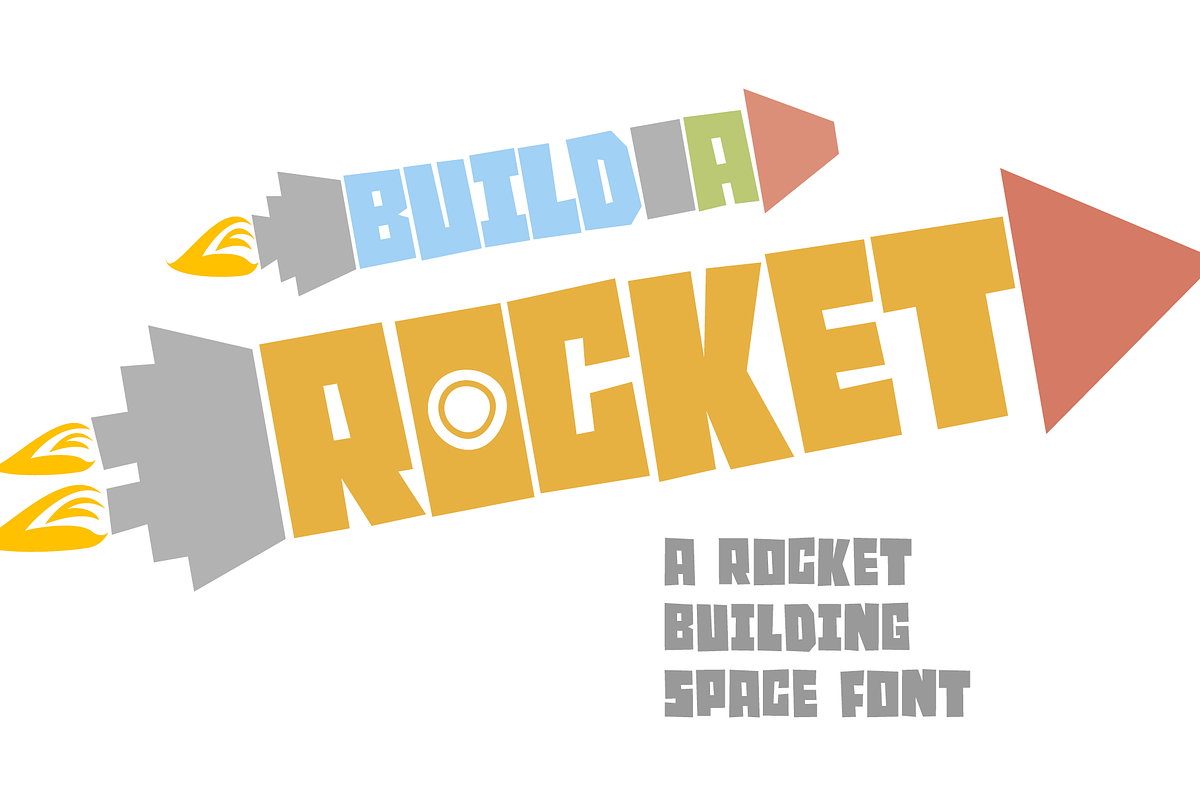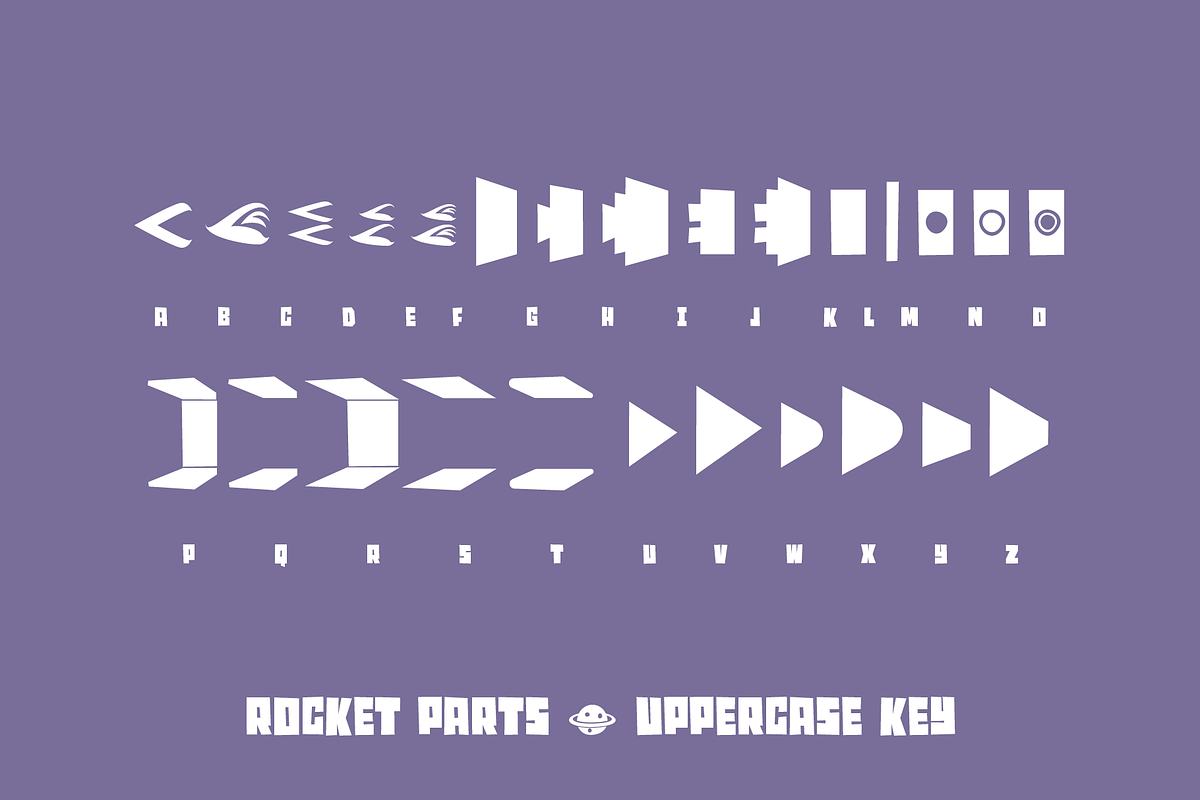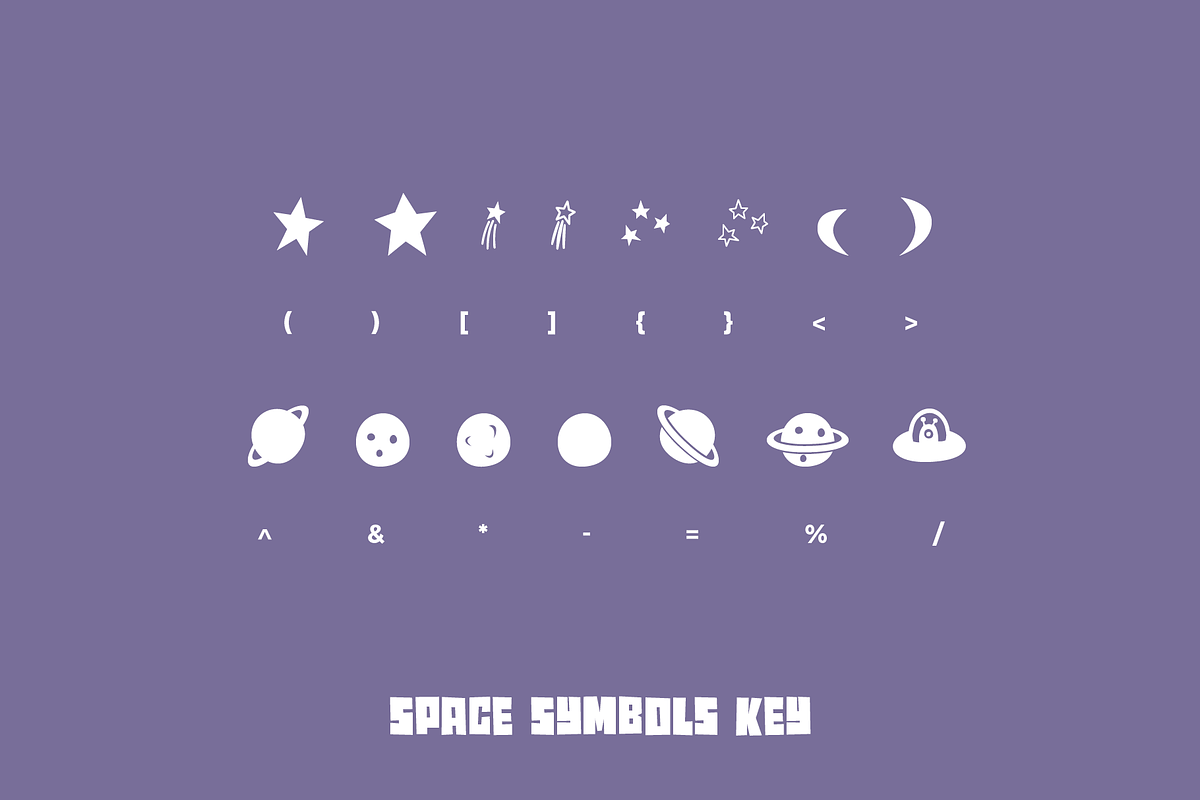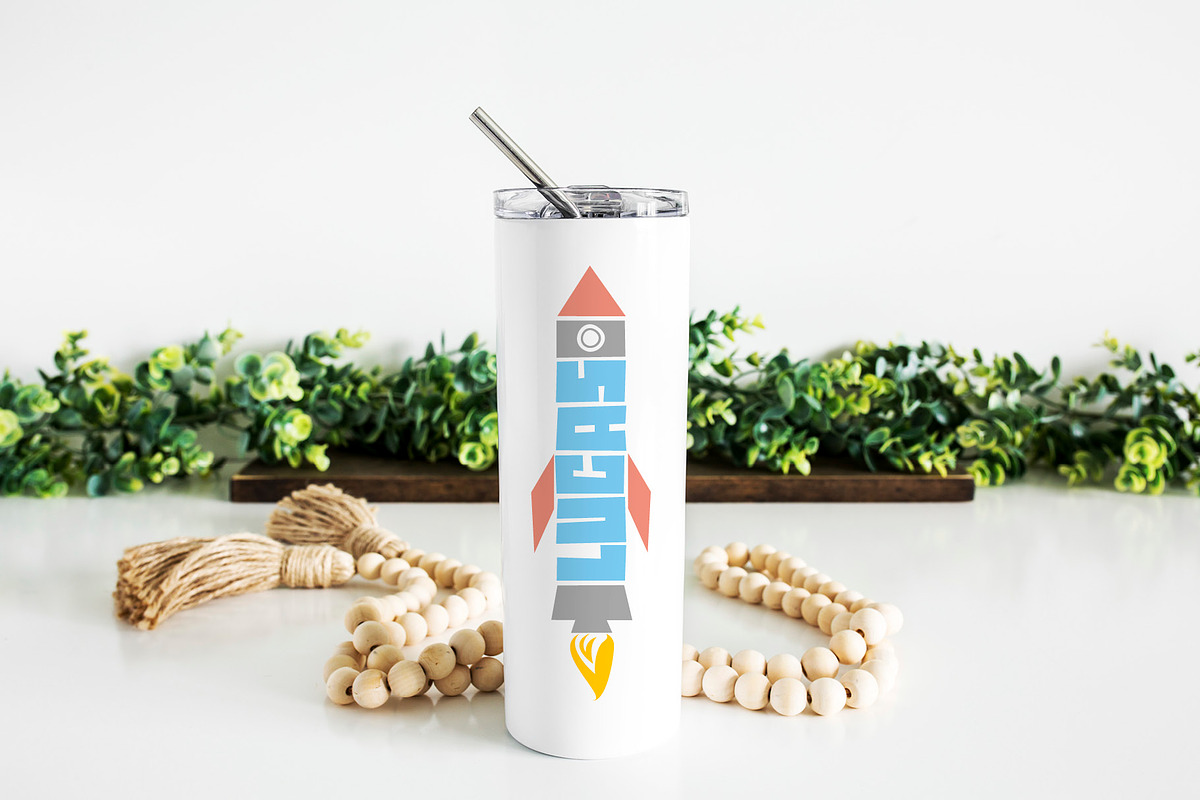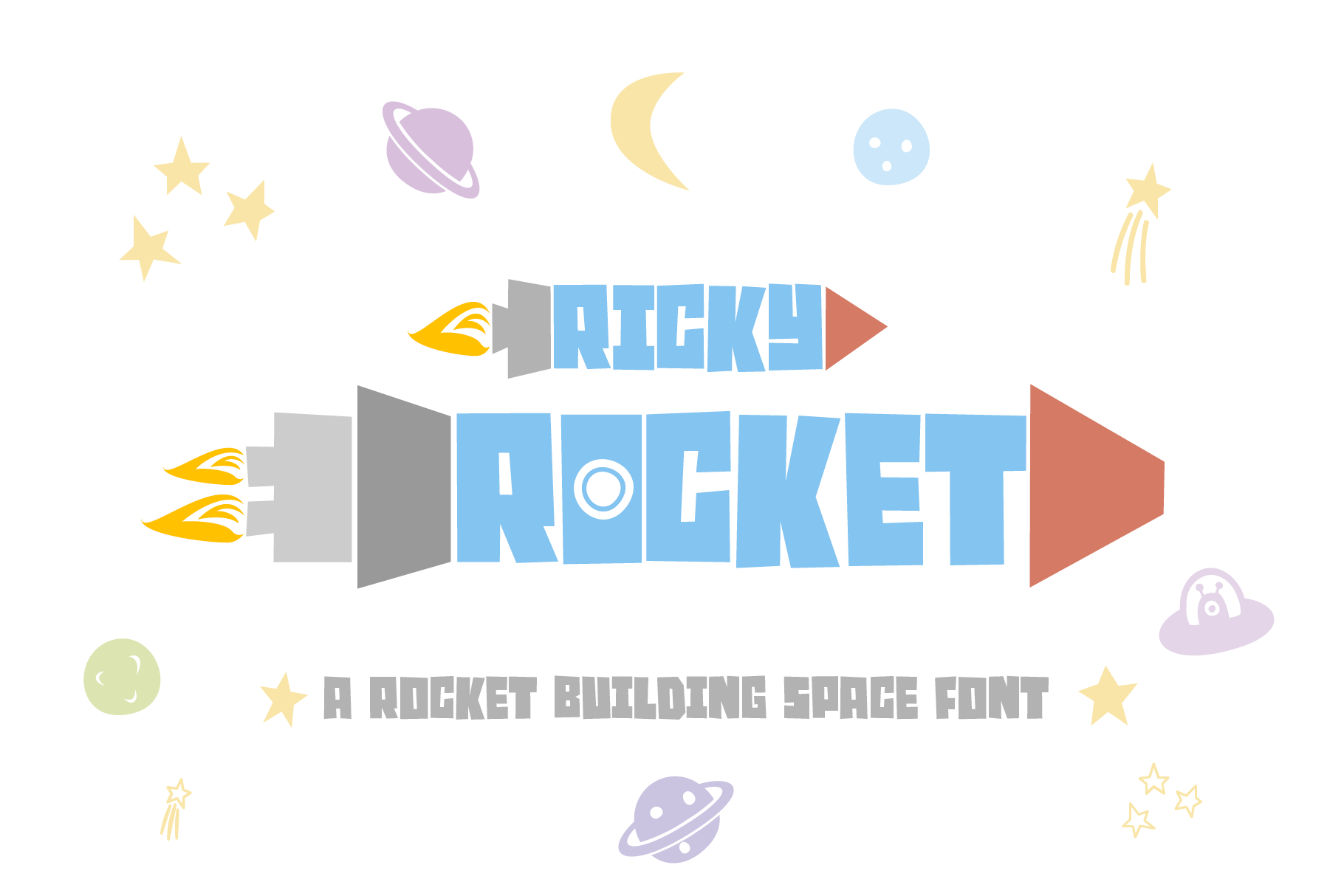
RICKY ROCKET FONT | a fun space font
Rickey Rocket Font is a fun space font for all your outer space themed craft projects! Easy to use and super quick to create your own 'named' rockets and space scenes. Includes rocket parts and extra space icons.
I created this Rocket Font so people can create rockets that include children's names within them. It's a quick and easy tool to build space scenes using the extra space symbols and include your named rocket surrounded by stars, planets or perhaps an alien?
This rocket font looks great on mugs, tumblers, t-shirts, hats, tote bags ...and everything else! The perfect space font to use for children's invitations, greeting cards and birthday celebration paraphernalia.
A super fun and easy to use space cartoon font, it's great for all those comic book style designs!
HOW TO USE RICKY ROCKET FONT Simply use the Ricky Rocket font UPPERCASE characters to create the rocket flame, thruster, wings and nose and use the lowercase letters for any name or word you want to insert as the rocket body. Use the key below or follow these instructions...
First use the uppercase characters A-E to create a rocket flame. Then, use F-J for the rocket thruster section. K-O can be used as extra body sections or to break up words. P-T are wings which will need to be repositioned or have kerning altered to let the letters run smoothly. Finally, use U-Z for the rocket nose.
RICKY ROCKET FONT KEY
Uppercase A-E - rocket flame F-J - rocket thruster K-O - extra body sections P-T - wings U-Z - rocket noses
Space Font Symbols Stars - (, ), [, ], { and } Moons - and Planets - ^, &, *, -, = and % Alien - /
Lowercase are the actual uppercase letters!
We suggest coloring the 'flame' yellow or orange and 'nose' red but have fun creating your own unique designs!
Fun, bold and perfect for space aged cartoon style designs. Ricky Rocket font is great as a boys font ...and a girls font, or just as a great kids space themed font.
As a decorative, display space font we do not recommend using RICKY ROCKET FONT for large paragraphs of text. We suggest using this rocket font for names, headlines and titles.
This space font is easy to cut with simple nodes for those using craft software.